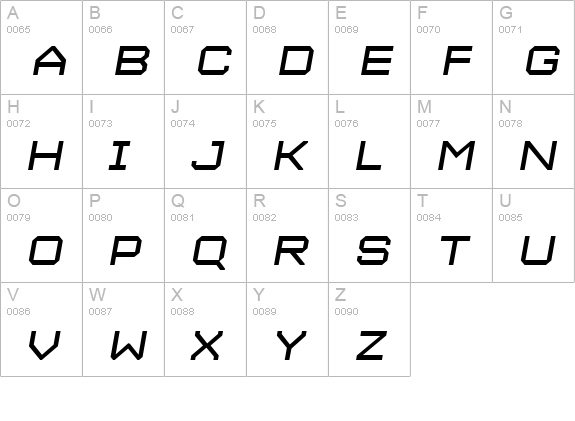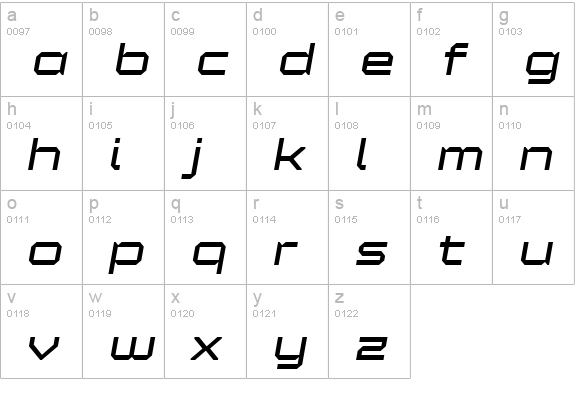
Maetl Oblique Font Details
Maetl Oblique is a distinctive, italic variant in the Maetl typeface family \xE2\x80\x94 well suited to design and typography projects.
Maetl Oblique is a stunning and versatile font that exudes a sense of elegance and modernity. With its sleek and slanted design, it adds a unique touch to any project, effortlessly capturing attention and making a bold statement. The beauty of Maetl Oblique lies in its ability to seamlessly blend sophistication with a contemporary edge. Its clean lines and smooth curves create a harmonious balance, making it suitable for a wide range of design purposes. Whether you're working on a logo, branding materials, packaging, or even a website, this font will elevate your project to new heights. One of the most remarkable aspects of Maetl Oblique is its versatility. It can effortlessly adapt to various styles, from minimalistic and sleek to bold and expressive. This font is truly a chameleon, capable of transforming any design into a masterpiece. But what sets Maetl Oblique apart from other fonts is its accessibility. It is freely available to download at FontsMarket.com, making it a valuable asset for designers, students, and anyone in need of a high-quality font without breaking the bank. The creators of Maetl Oblique understand the importance of accessibility and have made it easy for everyone to access and utilize this exceptional font. In conclusion, Maetl Oblique is a font that combines elegance, modernity, and accessibility. Its sleek design, versatility, and availability make it a must-have for any design project. Download Maetl Oblique for free at FontsMarket.com and experience the transformation it brings to your designs.